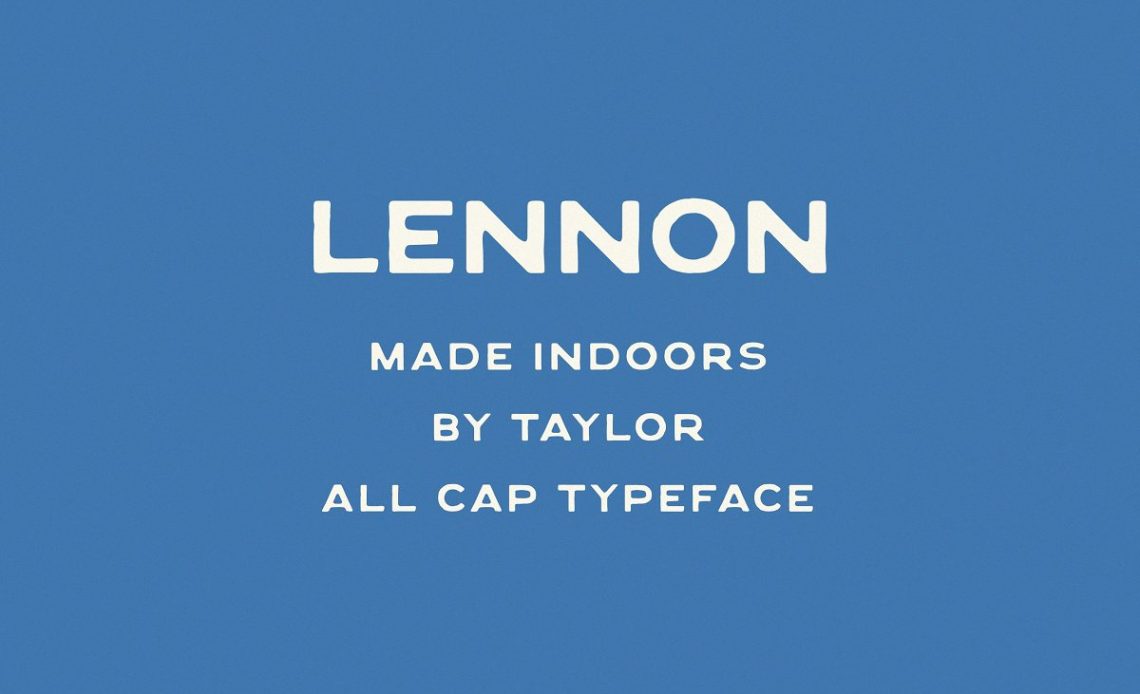
Looking for a vintage display font that's both stylish and practical? Look no further than Lennon, the latest creation from Taylor Penton's line of fonts. This unique typeface combines modern design elements with the classic look of vintage packaging lettering to create a font that's both eye-catching and functional.
Lennon features rounded edges and imperfections that give it a one-of-a-kind character, while its wide letter format ensures that your text will stand out in any context. With full uppercase alphabet, numbers 0-9, and basic punctuation, Lennon is perfect for any project that requires a touch of retro style.
But what really sets Lennon apart is its emotional appeal. By evoking the warmth and nostalgia of vintage advertising, this font speaks to our desire for authenticity and simplicity in an increasingly complicated world. Whether you're designing a logo, creating a poster, or just looking to add some personality to your next project, Lennon is the perfect choice.